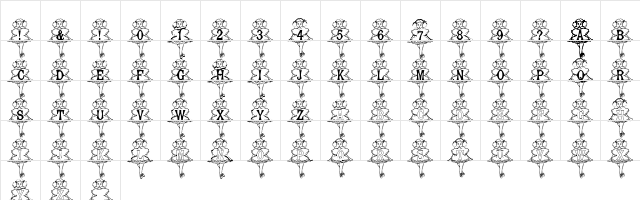
BJF Ballerina BJF Ballerina
| Designer | (art by Suzanne) |
BJF Ballerina is a composed and adaptable typeface that performs quietly and consistently across a wide range of design contexts.